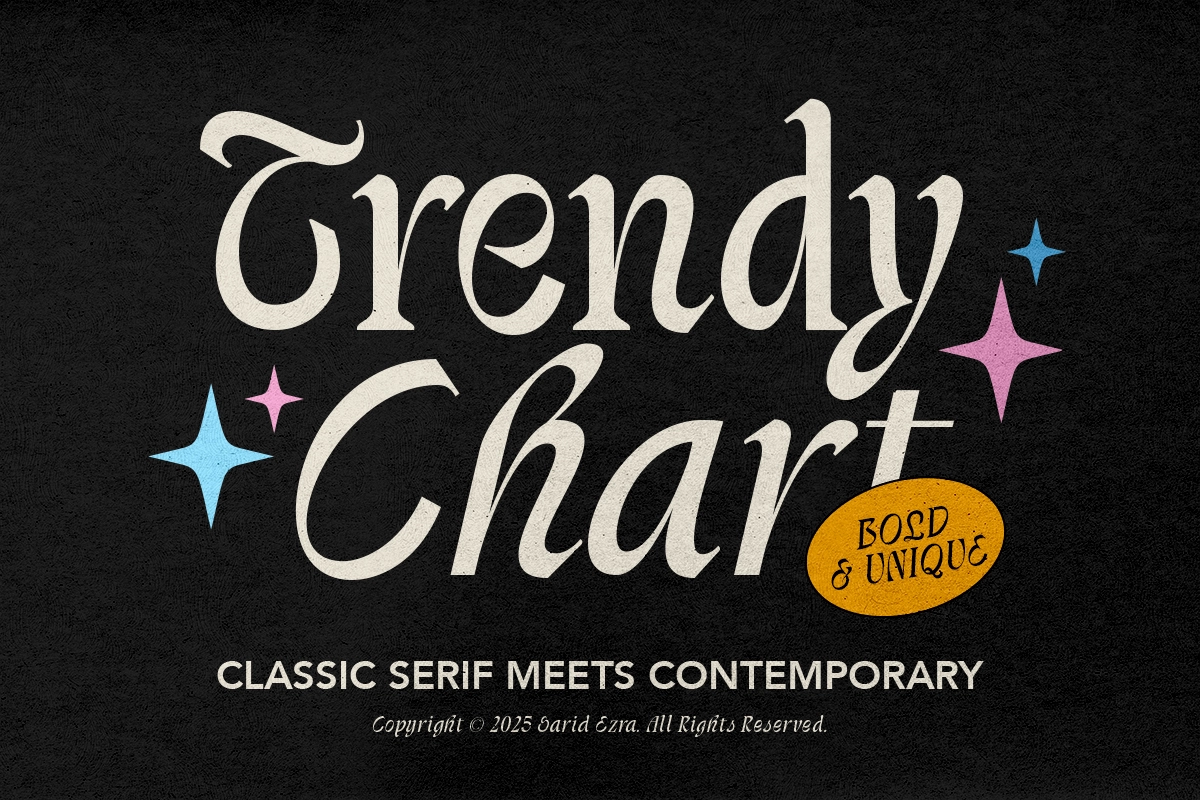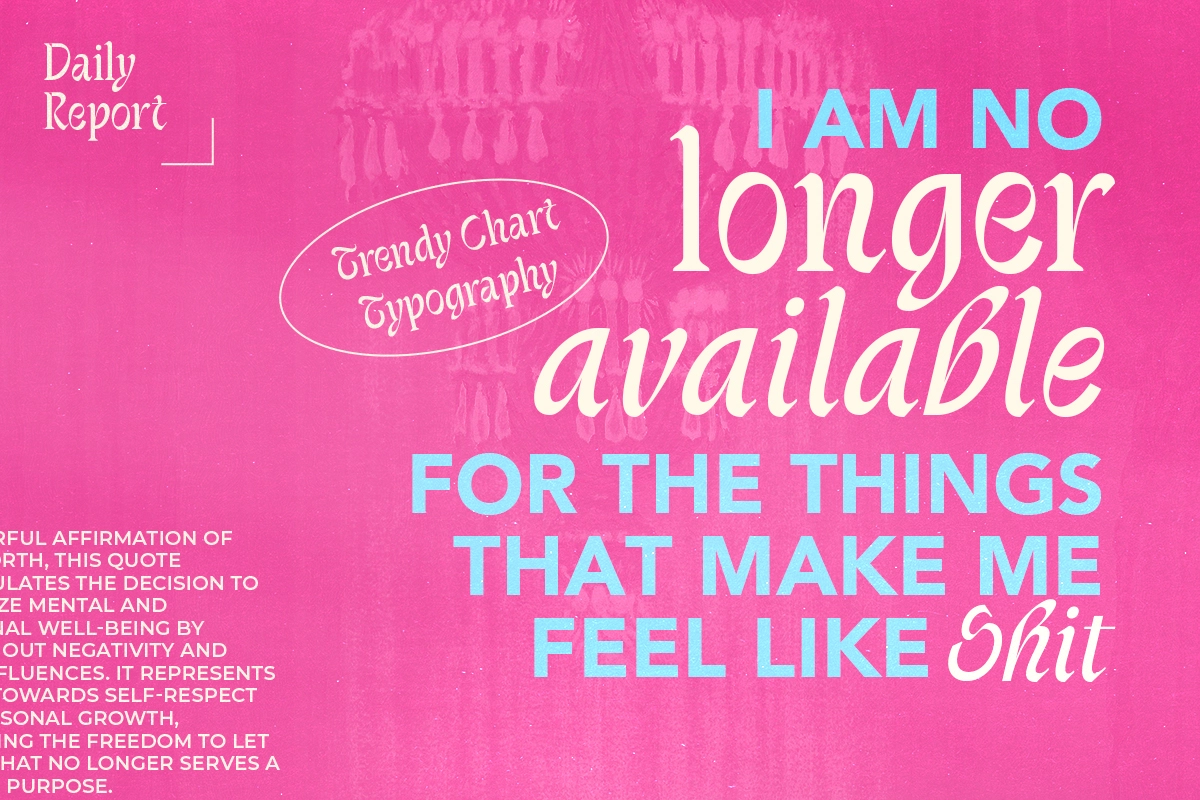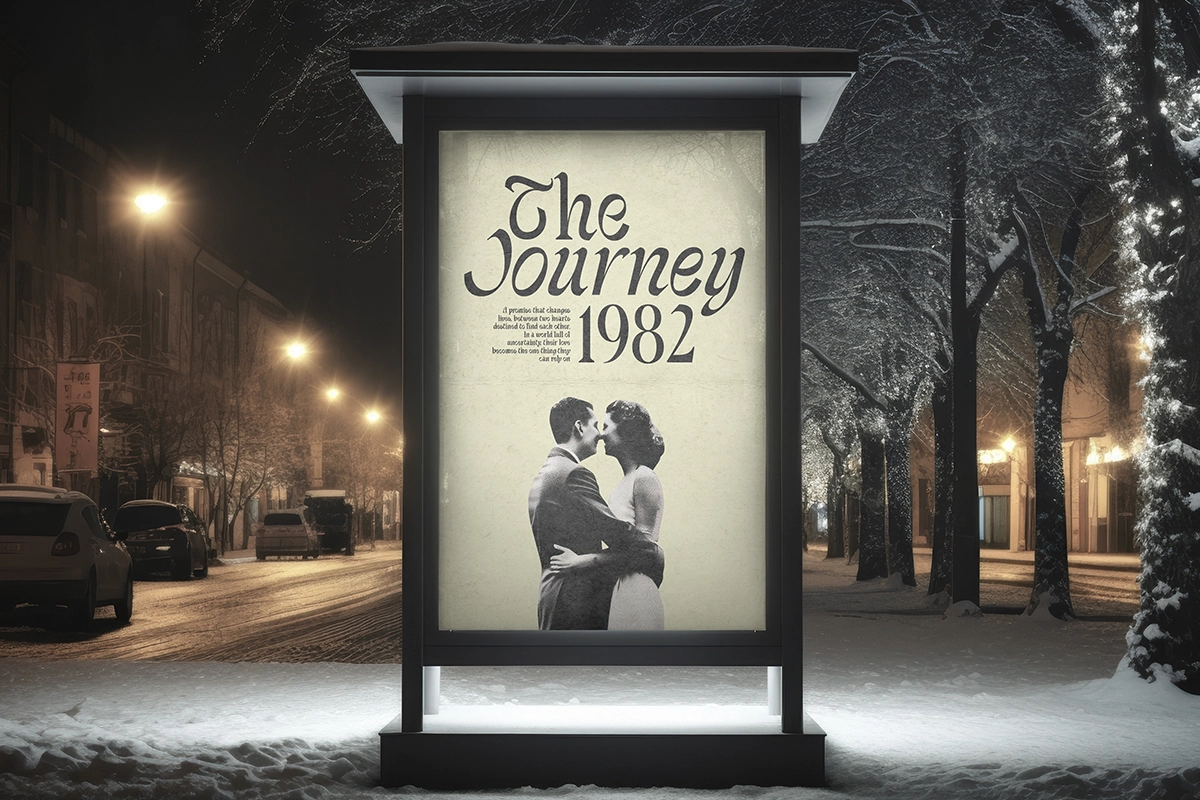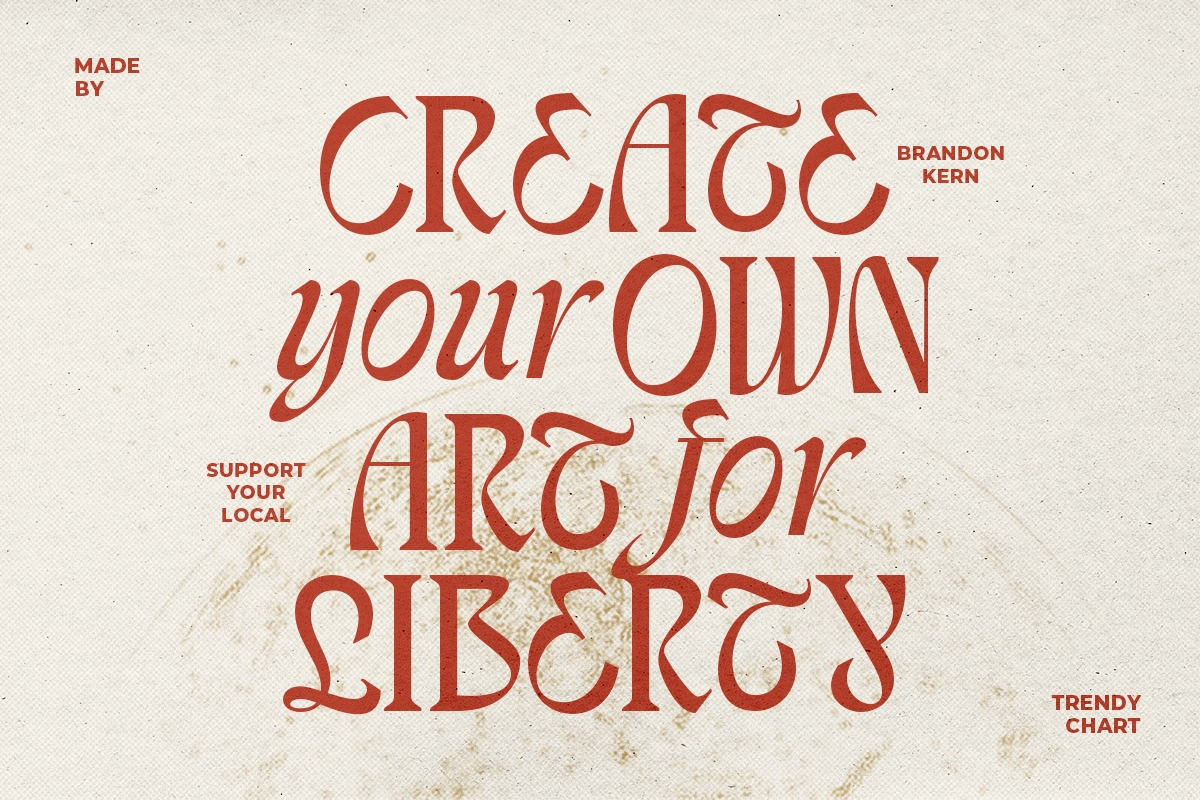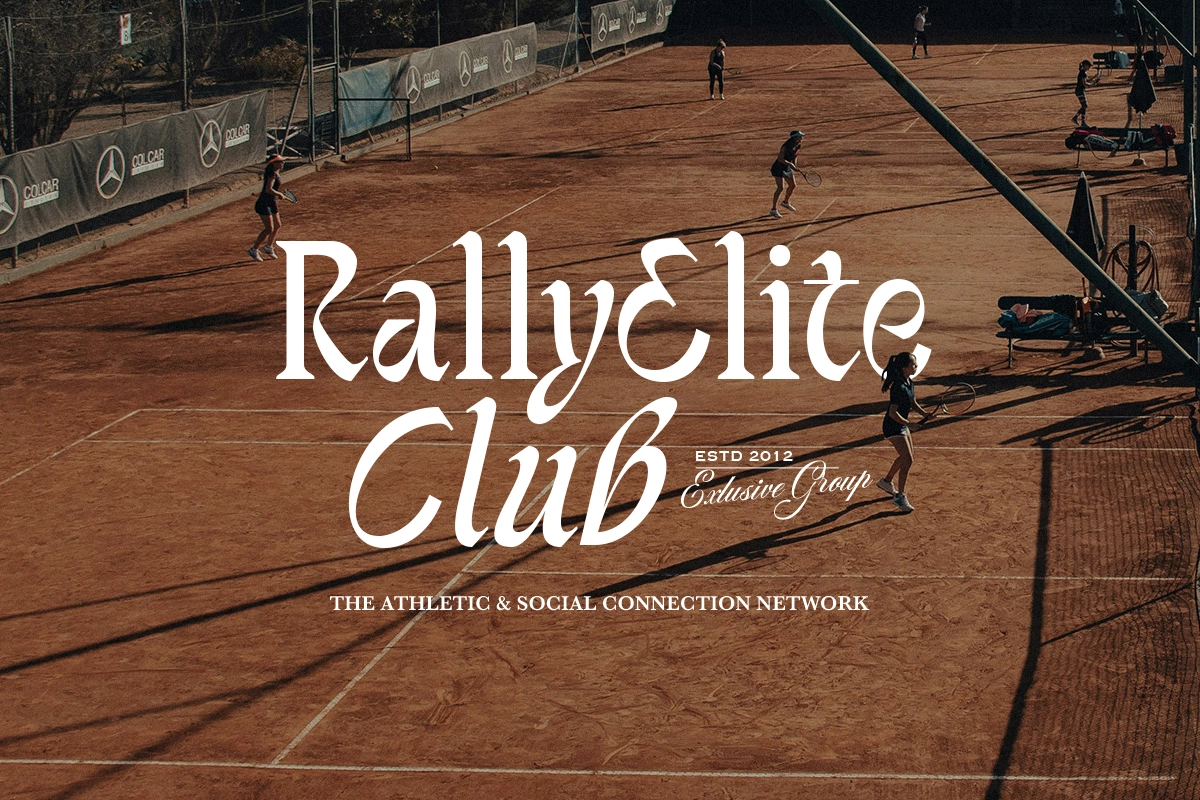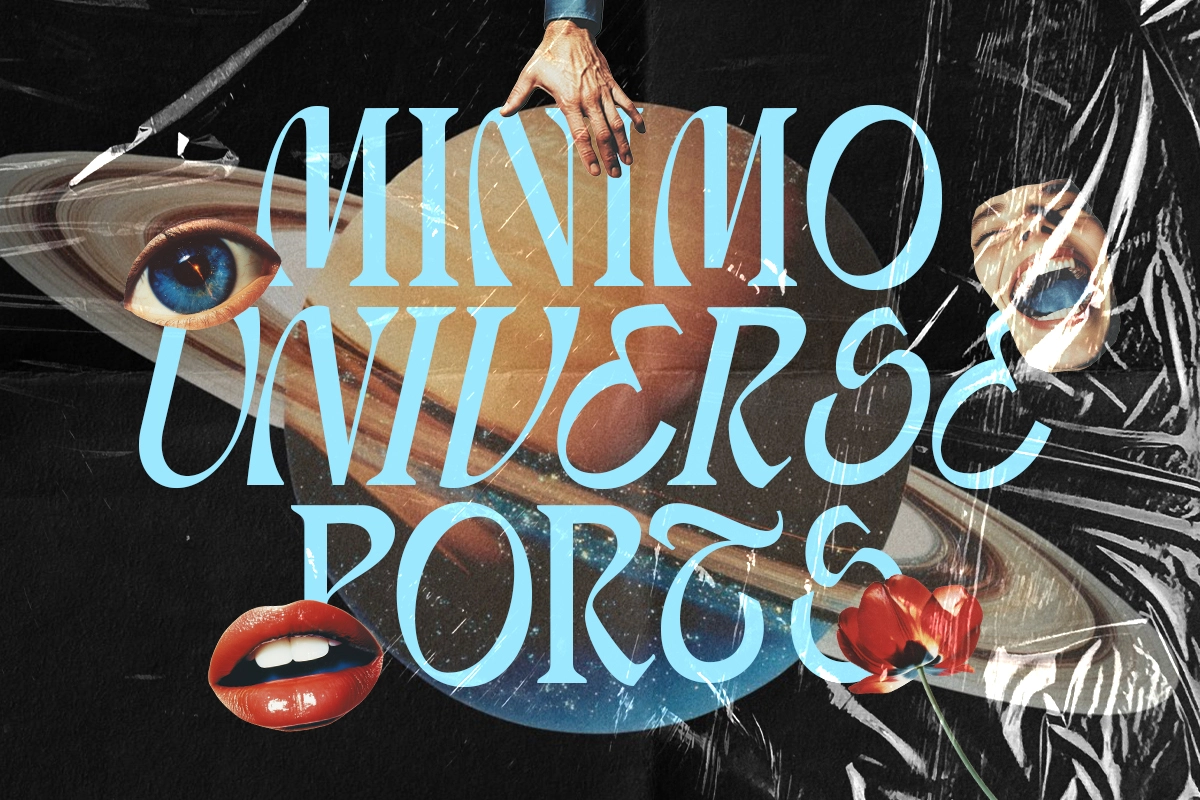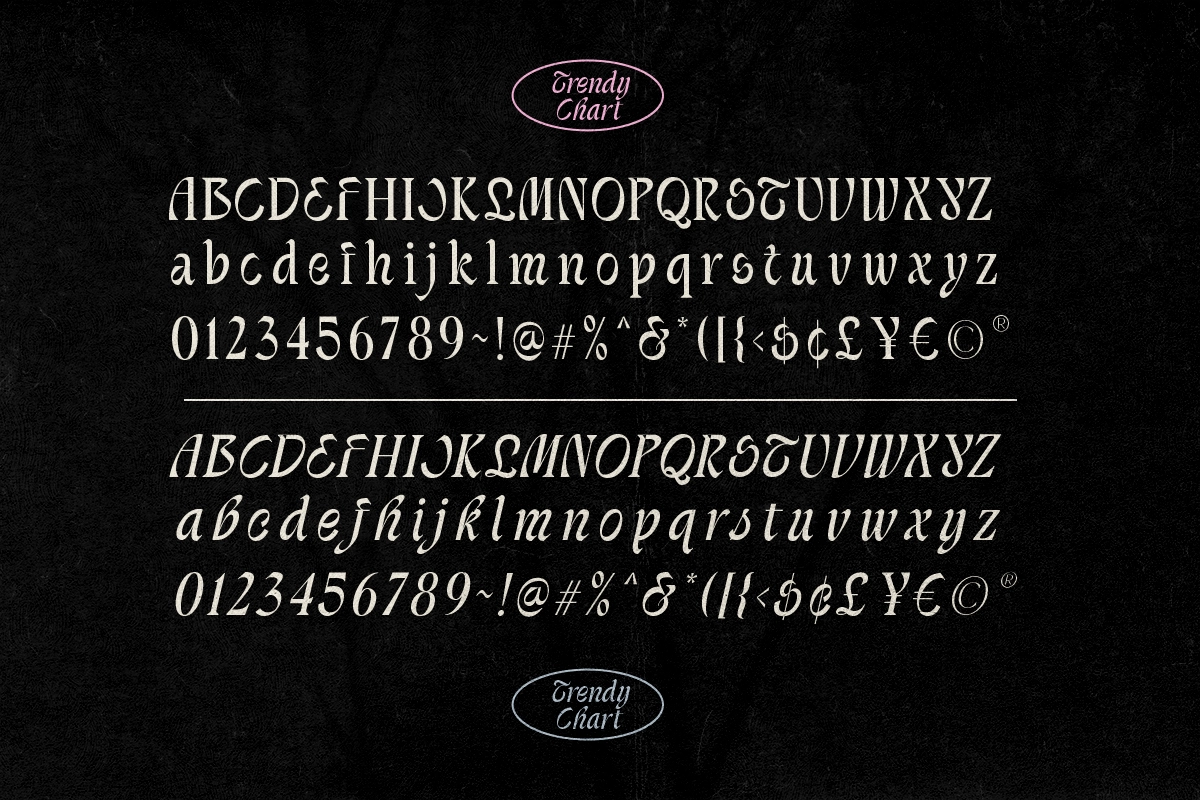
Trendy Chart - Unique Serif
Trendy Chart is a stylish and unique bold font based on serif. With the bold and uncommon shapes, this font will make your design and project looks more stunning and stand out. This font comes with the italic version that will make your design even more eye catching when you combine them. Trendy Chart also support multi language.